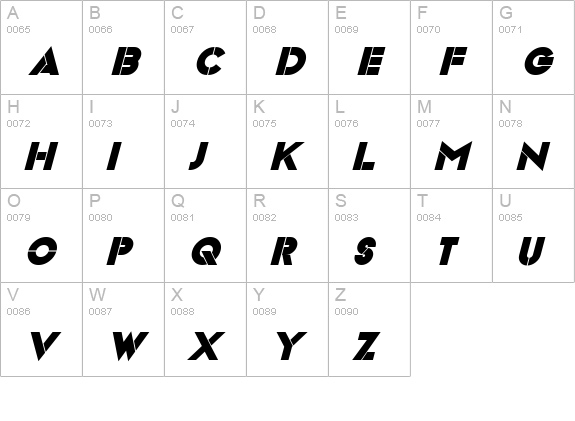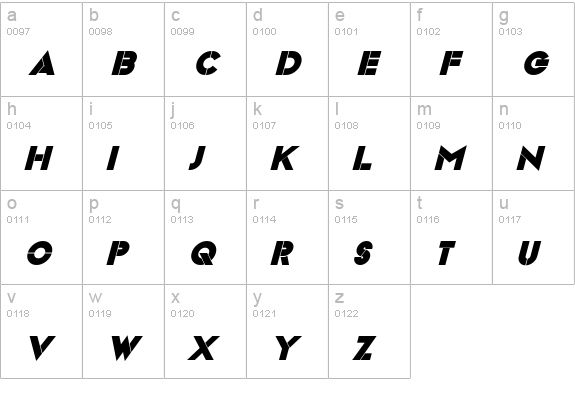
Videopac Bold Italic Font Details
Videopac Bold Italic is a strong, high-contrast, italic variant in the Videopac typeface family \xE2\x80\x94 well suited to headlines, attention-grabbing titles, and strong calls-to-action.
Introducing Videopac Bold Italic, a captivating and dynamic font that exudes confidence and modernity. This unique typeface combines boldness with a subtle touch of italic, resulting in a truly eye-catching design. Videopac Bold Italic is perfect for those seeking to make a bold statement in their designs, whether it be for logos, headlines, posters, or any other creative project. Its strong and commanding presence demands attention and effortlessly draws the viewer's gaze. This font's carefully crafted letterforms showcase a perfect balance between strength and elegance. Each character is meticulously designed to embody a sense of power and sophistication, while the slight italic slant adds a touch of flair and creativity. One of the most enticing features of Videopac Bold Italic is its versatility. It seamlessly adapts to various design styles and themes, making it suitable for a wide range of applications. Whether you're working on a modern, edgy project or a classic, timeless design, this font will enhance your creations with its striking presence. But here's the best part – Videopac Bold Italic is freely available to download at FontsMarket.com. Yes, you read that right! You can effortlessly elevate your designs without spending a dime. FontsMarket.com provides a convenient and accessible platform for designers to explore and acquire this remarkable font, ensuring that everyone has the opportunity to access top-quality design resources. So why wait? Embrace the power of Videopac Bold Italic and let your designs stand out from the crowd. Download this exceptional font today from FontsMarket.com and unleash your creativity like never before.